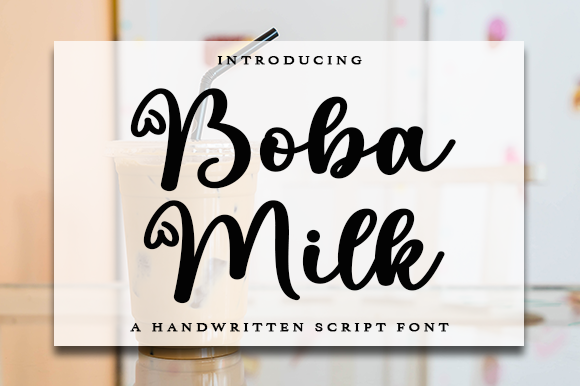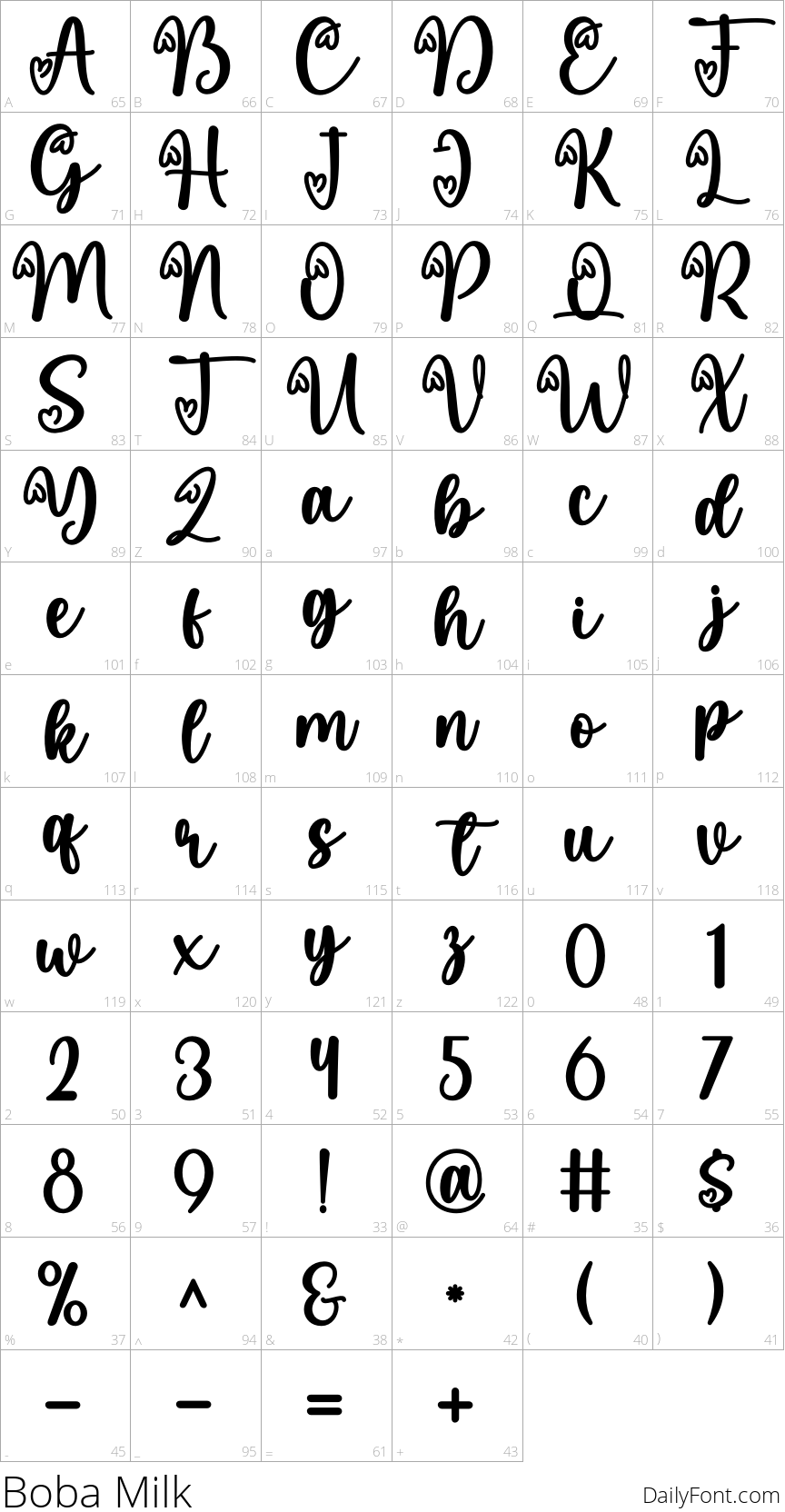
Boba Milk
Boba Milk is a delightful font duo consisting of both script and display styles, expertly crafted to harmonize beautifully. Whether you choose to utilize them together or separately, these fonts inject a chic and cheery vibe into your creative projects. Ideal for digital scrapbooking, social media graphics, or any design that requires a playful elegance, Boba Milk adds a unique flair that stands out.
This versatile pairing is PUA encoded, ensuring that accessing all of its beautiful glyphs and ligatures is a breeze. Enhance your designs with the fluidity and charm that Boba Milk offers, making every project not just complete but captivating. Perfect for wedding invitations, branding materials, or simply injecting a bit of fun into your everyday graphics, Boba Milk is the go-to choice for designers seeking engaging and stylish typography.